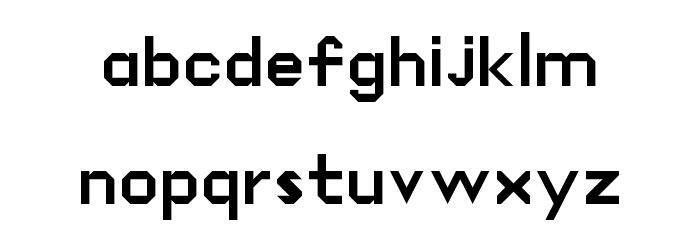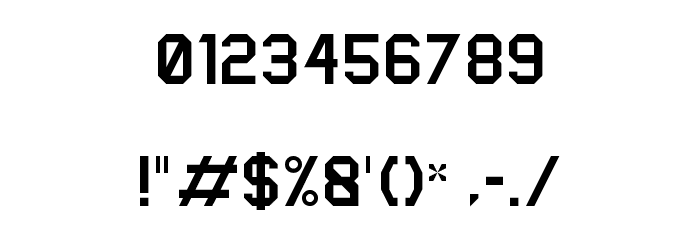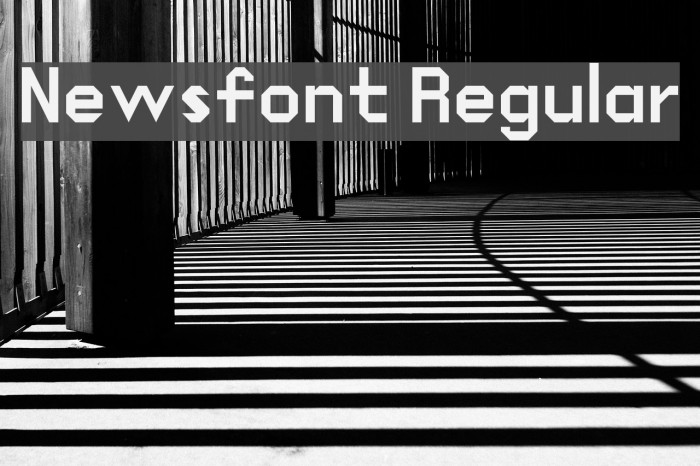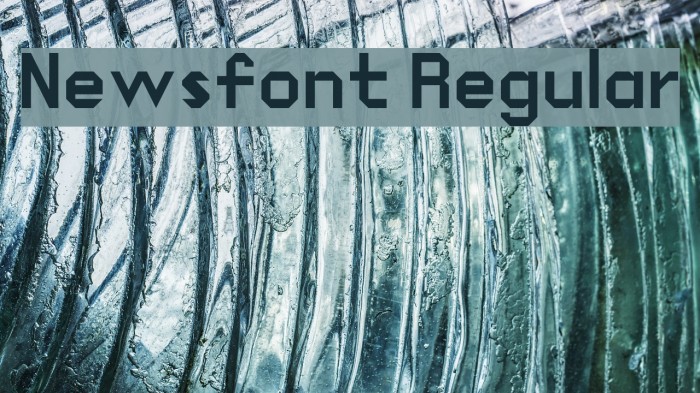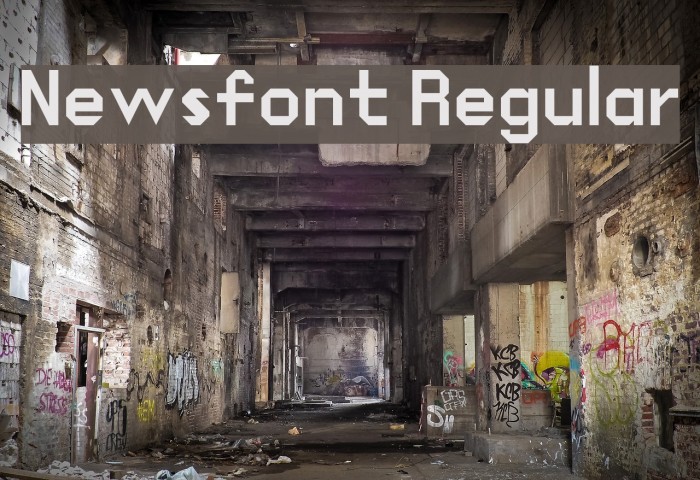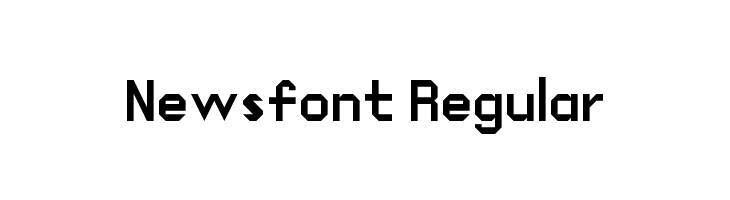
Newsfont Regular Font
This font features a bold, geometric design with a modern aesthetic. The characters are constructed with sharp angles and straight lines, giving it a futuristic and digital feel. The uppercase and lowercase letters maintain a consistent style, with a uniform height and width that enhances readability. The numerals and special characters follow the same design principles, ensuring a cohesive look across all text elements. This font's unique style makes it stand out, while its clear structure ensures it remains legible.
A bold, geometric font with a modern, digital aesthetic.
- Proposed Projects: Ideal for technology branding, digital media, video game interfaces, and modern advertising campaigns.